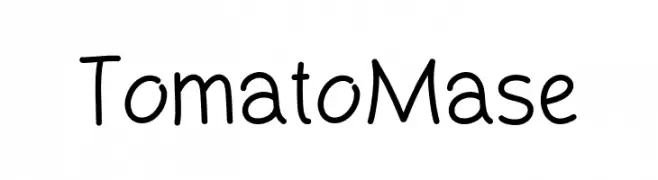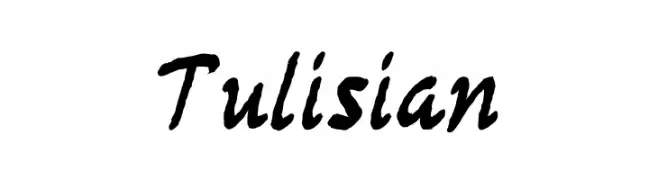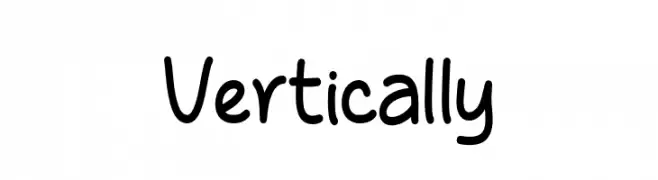
A playful, hand-drawn font with rounded, friendly characters.
A bold, playful font with rounded edges and a hand-drawn look.
A bold, handwritten font with a playful and energetic style.
A dynamic, handwritten-style font with bold, fluid strokes.
A playful, casual handwritten font with rounded, smooth letterforms.
A modern, high-contrast font with elegant, slender characters and unique decorative elements.
A bold, decorative font with a vintage, three-dimensional style.
A bold, italic serif font with dynamic slant and strong presence.
A bold, angular font with a rugged, geometric design.
A bold, angular italic font with a modern, geometric style.